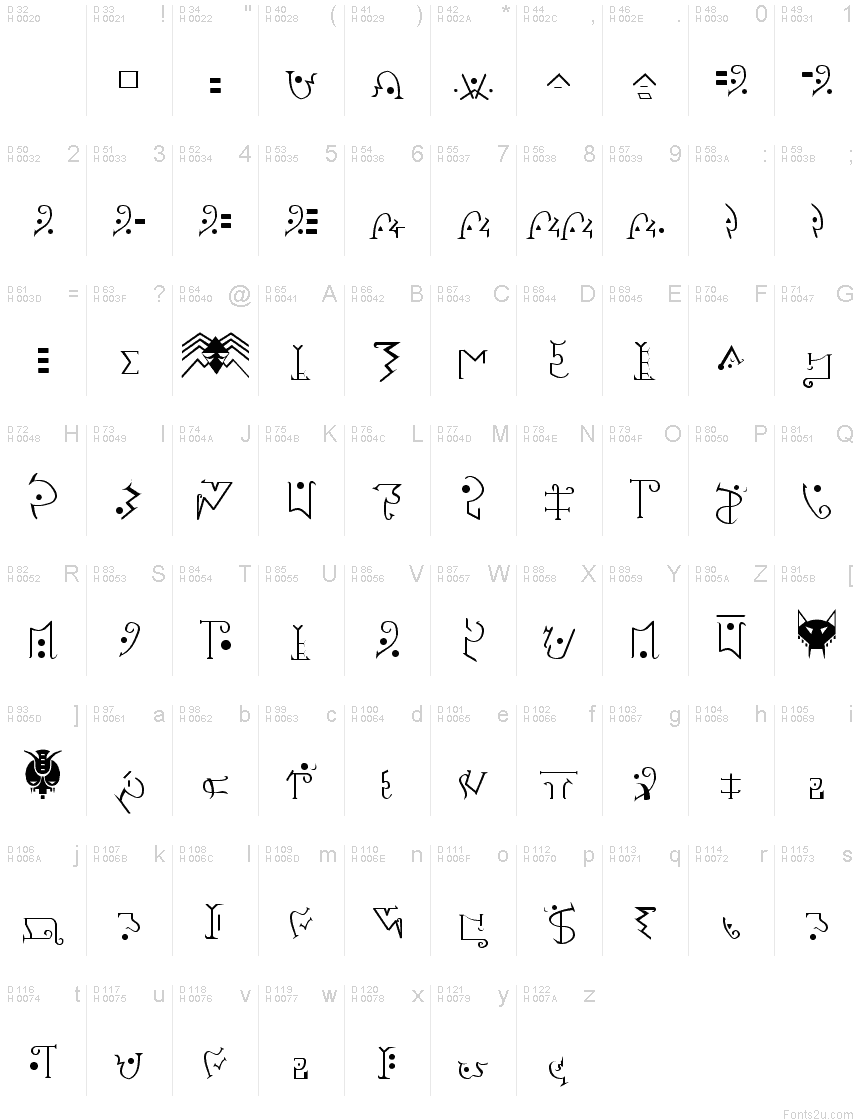
Predacon Script
Predacon Script is a freeware font created by Jim Sorenson of Giedi Prime fonts, www.giediprime.net. It is based on the writing of the Predacons from Beast Wars. It is to be distributed freely. Completed on 1/30/99. Rearanged on 2/4/99.